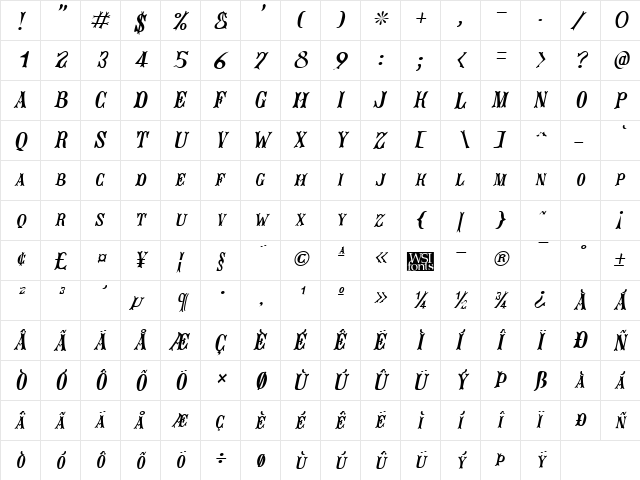
Jacques Italic Font Preview
Jacques Italic
Design Context for Jacques Typeface
Jacques is a composed and adaptable typeface that performs quietly and consistently across a wide range of design contexts. Its italic angle brings a sense of urgency and motion to the letterforms.
Pro Tip: Use Jacques for emphasis, pull quotes, and subheadings where its slanted energy can add rhythm to the layout.